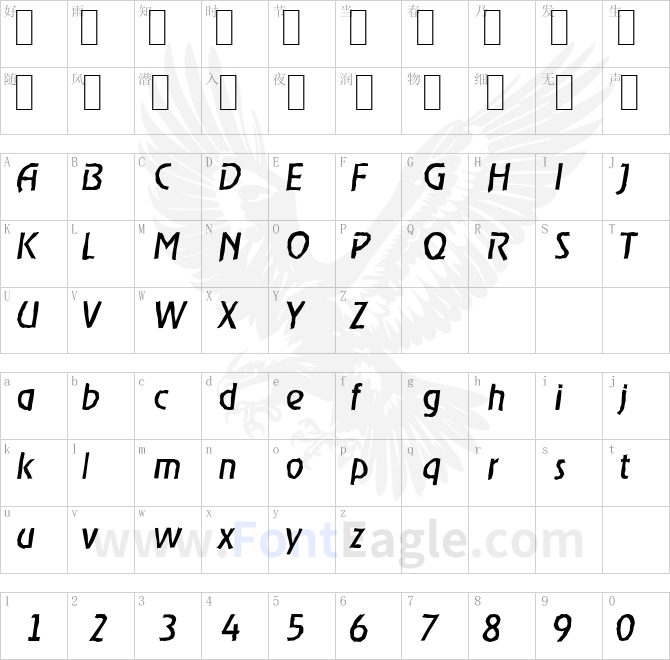
OnStageAntique Italic.ttf Font Image
- Font name:OnStageAntique
- Font Subfamily ID:SoftMaker Software GmbH OnStageAntique-Italic
- Font Full Name:OnStageAntique-Italic
- Postscript:OnStageAntiqueItalic
OnStageAntique Italic.ttf Characters Sample